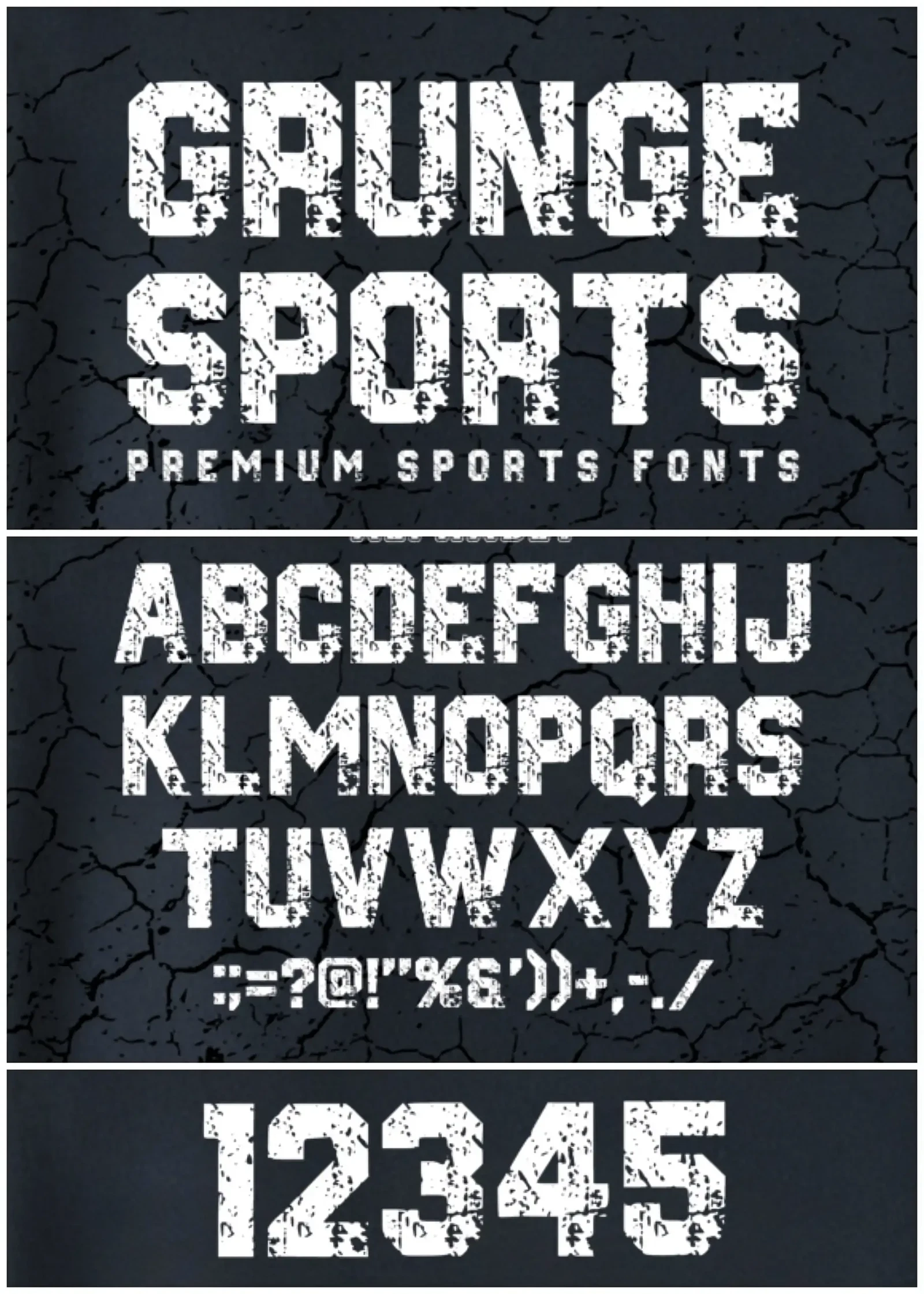
The Grunge Sports Font is a strong, gritty display style for designers working on sports projects that need a bold, energetic look. Its cracked texture and solid build give off a tough, intense feel. It’s great when you need something that grabs attention.
This font works well for sports team logos, fitness brands, posters for extreme sports, streetwear, and sports product packaging. The all-caps design makes an immediate impact, and the grunge texture adds character. It’s a solid option for football designs, esports visuals, gym quotes, and sports crafts.
This font is a good fit for anyone seeking a grunge sports look, a distressed athletic typeface, or bold textured letters. If you’re designing apparel for a wrestling team, branding a hardcore gym, or making posters for extreme sports, this font has the right mix of grit and strength.
The Grunge Sports Font turns regular designs into statements, adding force and authenticity to sports branding and high-energy content.